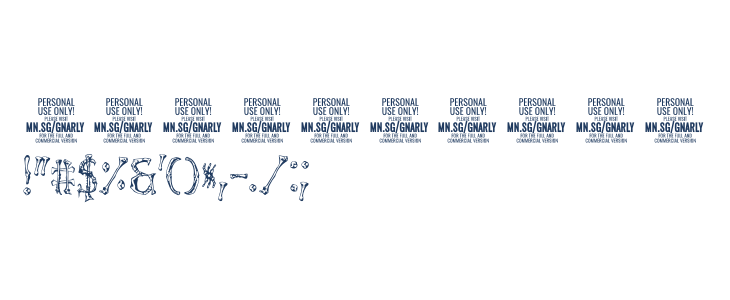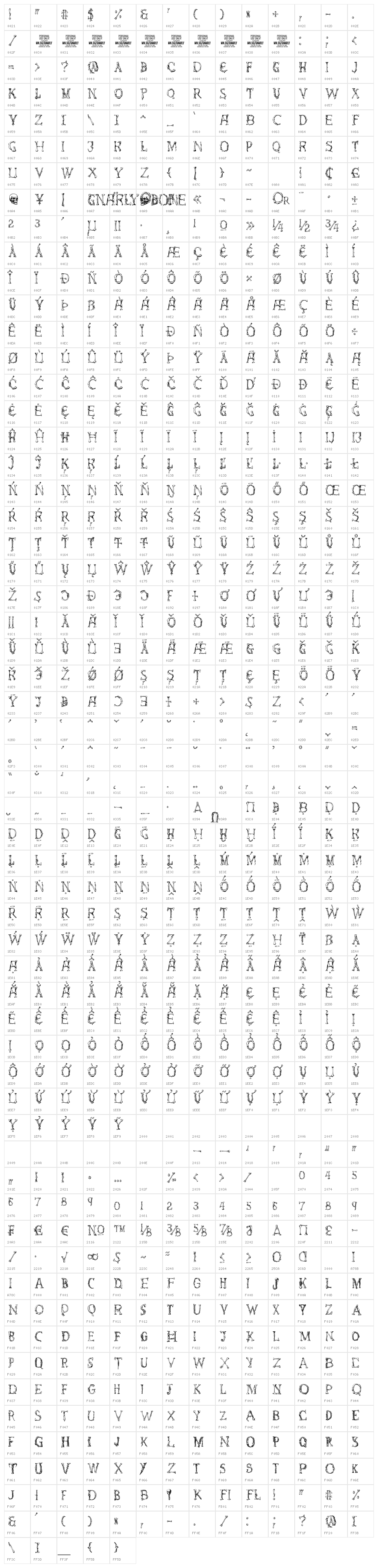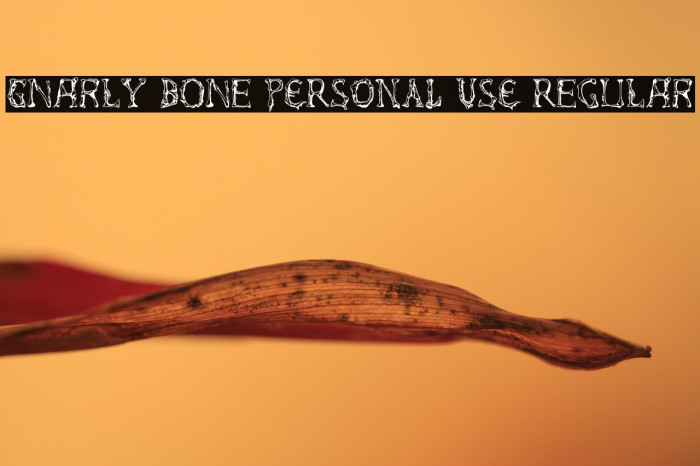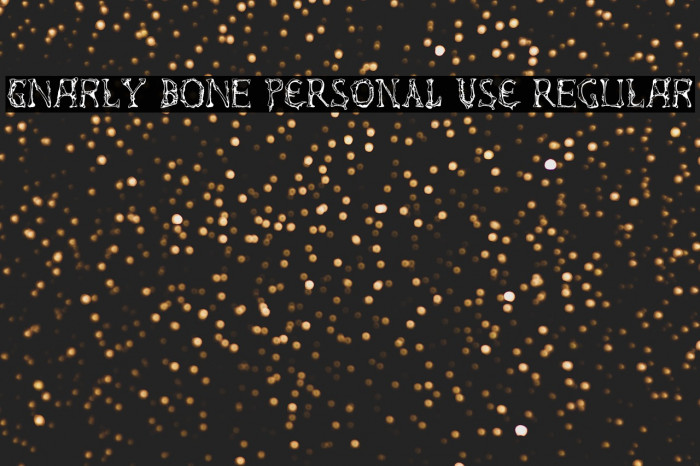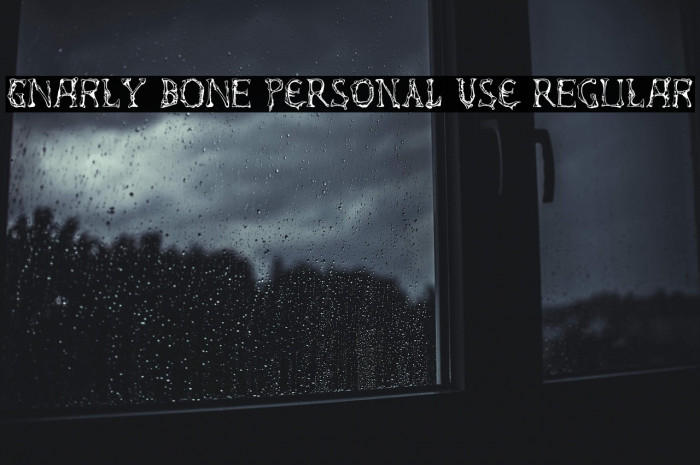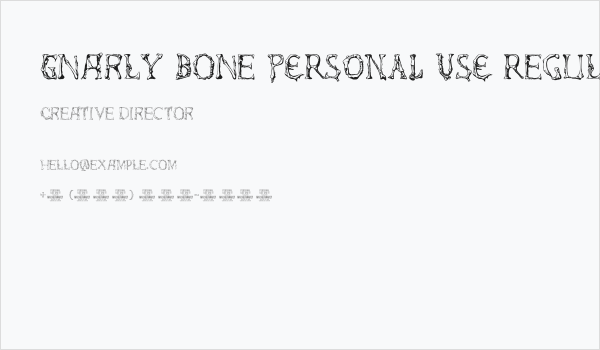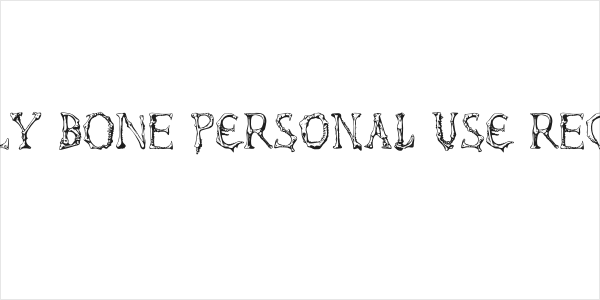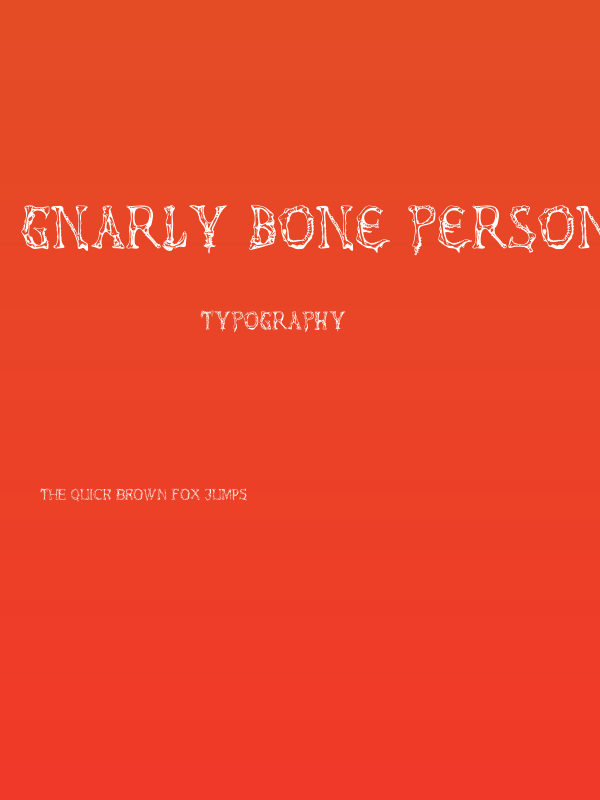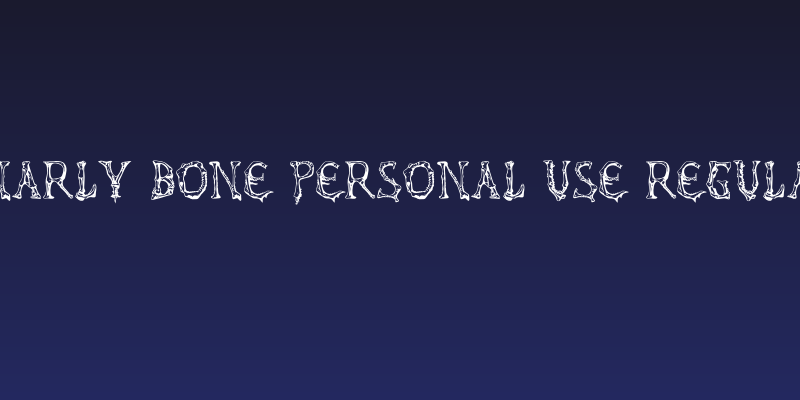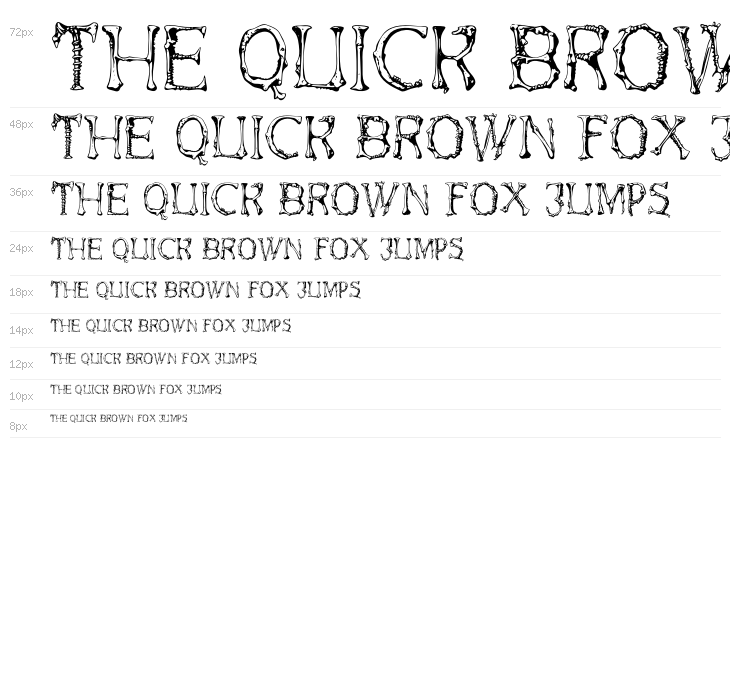
Gnarly Bone PERSONAL USE Regular Font
Gnarly Bone PERSONAL USE Regular Description
This font features a unique and edgy design, reminiscent of twisted branches or bones. Each character is intricately detailed, with jagged edges and irregular shapes that give it a raw, organic feel. The uppercase and lowercase letters maintain a consistent theme, with the uppercase being slightly more pronounced. The numbers and special characters follow the same aesthetic, ensuring a cohesive look across all text. This font is perfect for projects that require a bold and unconventional style, such as horror-themed designs or alternative music posters.
| Use Case | Logos, Posters, Headlines |
| Proposed Projects | Ideal for horror-themed designs, alternative music posters, and edgy branding. |